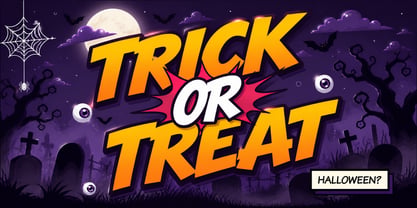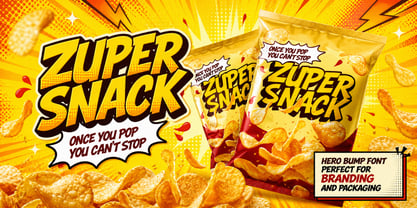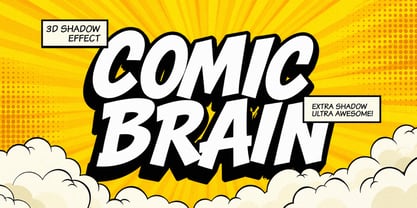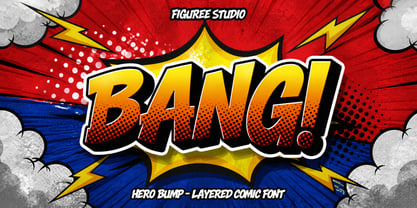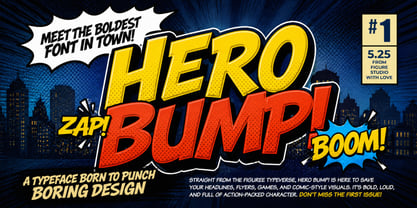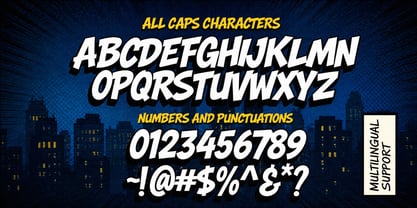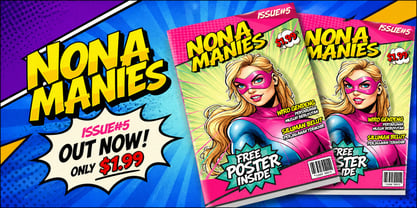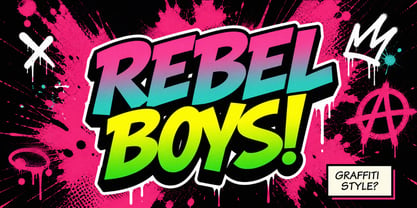
Hero Bump
von Figuree Studio
Die Schriftfamilie Hero Bump wurde von Icep Anwar Fadhil entworfen und von Figuree Studio veröffentlicht. Hero Bump enthält 2 Stile und Familienpaketoptionen. Mehr über diese Familie
Hero Bump – The Bold Comic Display Font That Packs a Punch!
Looking to bring action, energy, and retro comic-book charm into your designs? Meet Hero Bump, the boldest comic display font in town—born to punch boring design right in the face! Inspired by the golden age of comics and classic superhero aesthetics, Hero Bump is a high-impact, all-caps typeface designed to save your headlines, posters, games, and branding from bland visuals.
Designer: Icep Anwar Fadhil
Foundry: Figuree Studio